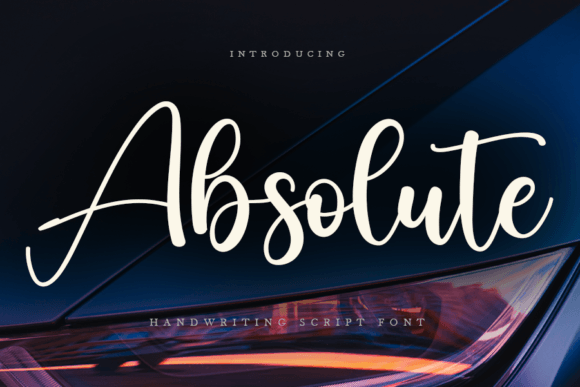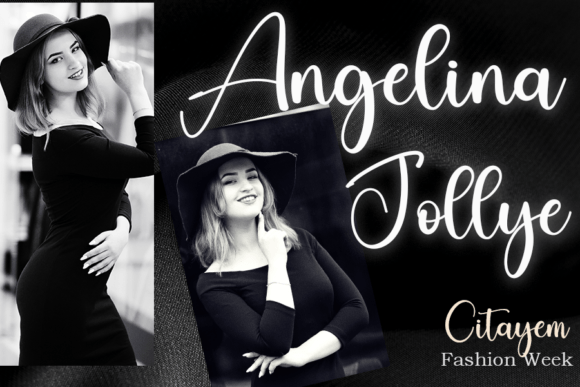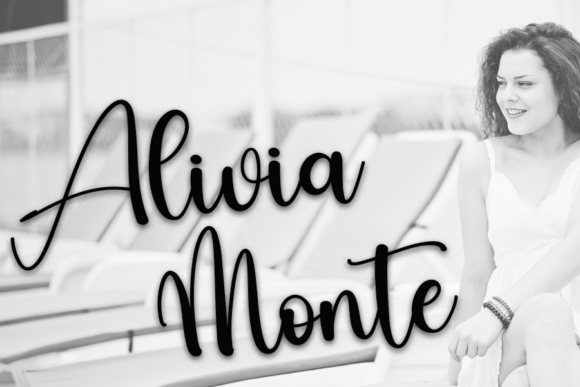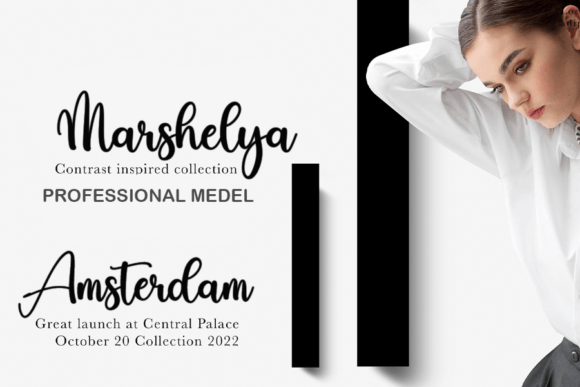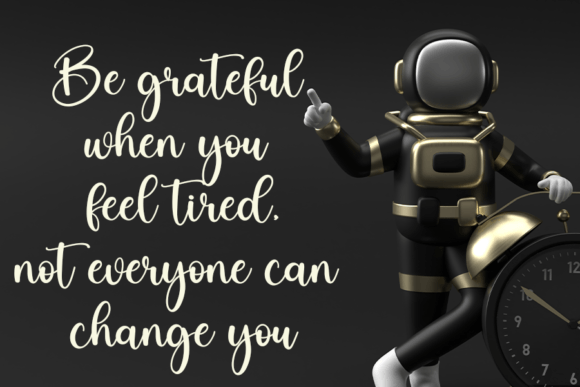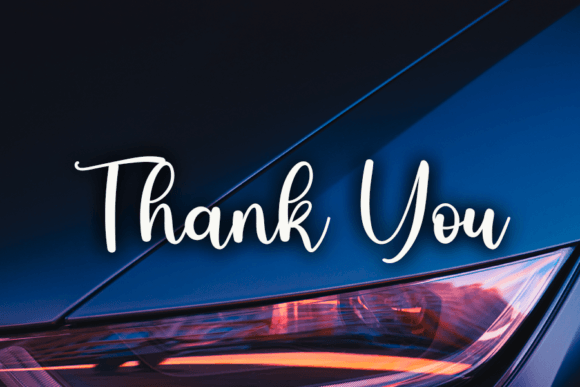
What Is Absolute Font?
Absolute is a neat and beautiful handwritten font that brings elegance and charm to any project. With its smooth curves and well-balanced characters, this font offers a timeless style that feels polished and professional. Because it was crafted with great care, Absolute is an excellent choice for both personal and business use.
You’ll love how it instantly transforms your ideas into eye-catching, sophisticated designs.
Absolute is a versatile font that adapts easily to many creative applications. For example, it’s perfect for wedding invitations. Whether you are creating formal stationery or casual save-the-date cards, this font adds warmth and sophistication.
It also shines in logos and branding projects. If you want your business to feel trustworthy and elegant, Absolute helps you build a memorable visual identity that resonates with your audience.
Additionally, it works beautifully in social media graphics. Whether you’re posting quotes, announcing promotions, or sharing updates, its refined letters will make your content stand out.
Absolute is also ideal for packaging and product labels. Its clean, graceful style gives any design a premium look. From greeting cards and signage to personal crafts and digital templates, this font adapts seamlessly to every context.
Why Should You Choose Absolute Font?
There are many reasons to add Absolute to your font collection. First, it stays clear and legible at every size. Whether you use it for large headlines or small captions, each letter remains crisp and easy to read.
It pairs effortlessly with minimalist serif or sans-serif fonts, making it simple to create cohesive, professional layouts.
Because Absolute is fully PUA encoded, you can access all glyphs, swashes, and alternates without extra tools. Customizing your designs becomes fast and enjoyable.
Designers appreciate how polished it looks immediately, saving time while ensuring high-quality results.
Absolute Font brings elegance, clarity, and timeless beauty to your projects. For example, if you want your designs to feel warm and refined, this font makes it effortless.
Even simple layouts gain personality with its smooth, graceful curves. Whether you’re creating invitations, social media posts, or branded packaging, your work will look cohesive and sophisticated.
Using a premium handwritten font also shows your attention to detail and helps you make a positive impression.
Absolute Font is more than a typeface—it’s a creative tool that adds style and elegance to everything you create. From logos and wedding stationery to product labels and digital graphics, this font adapts easily and elevates every project.